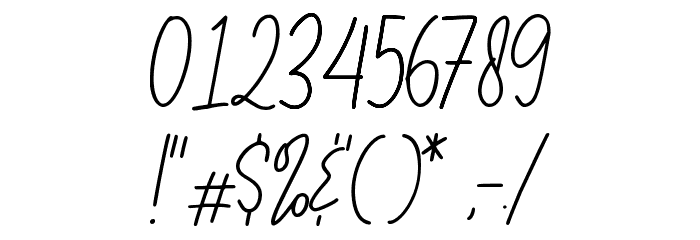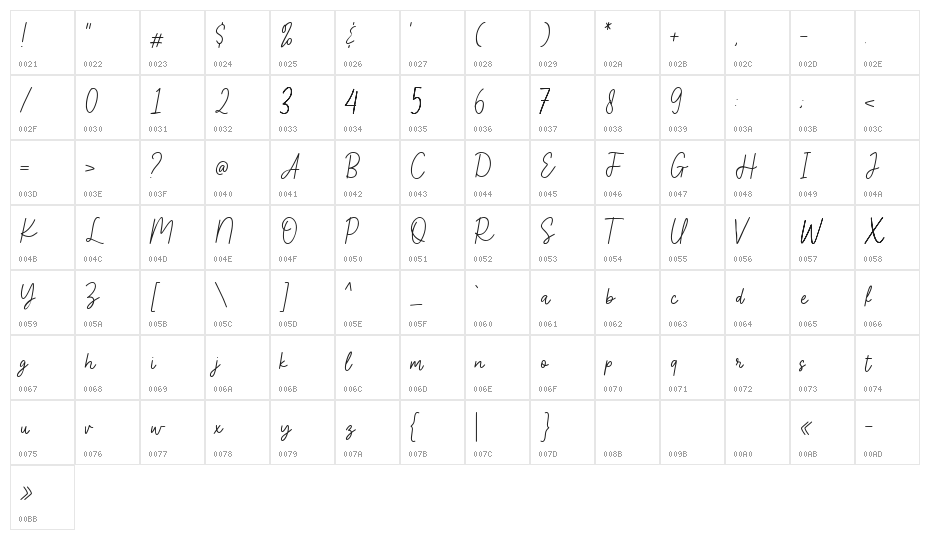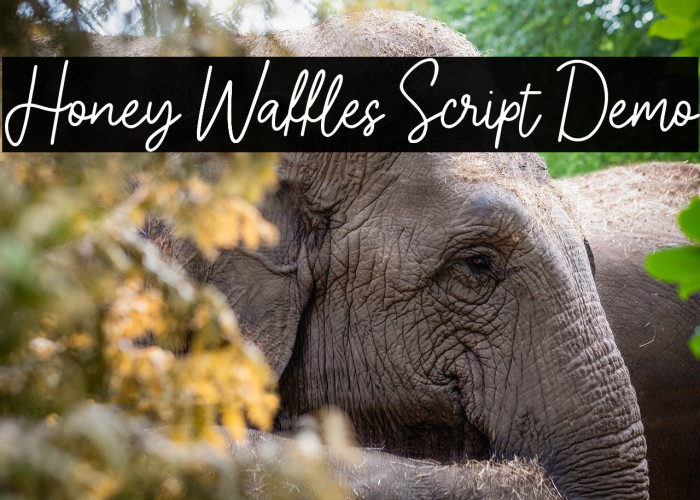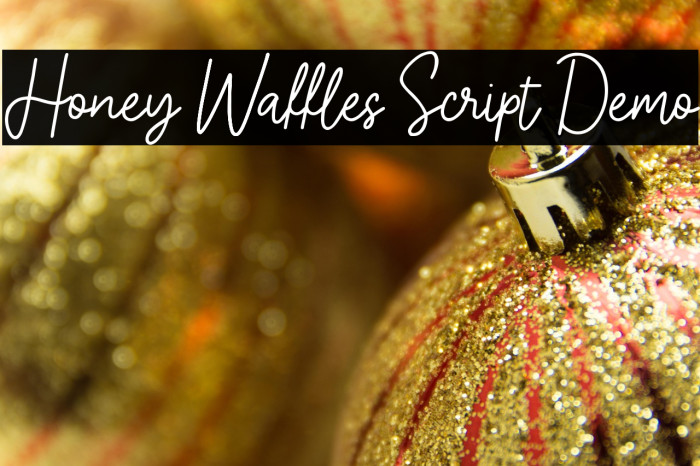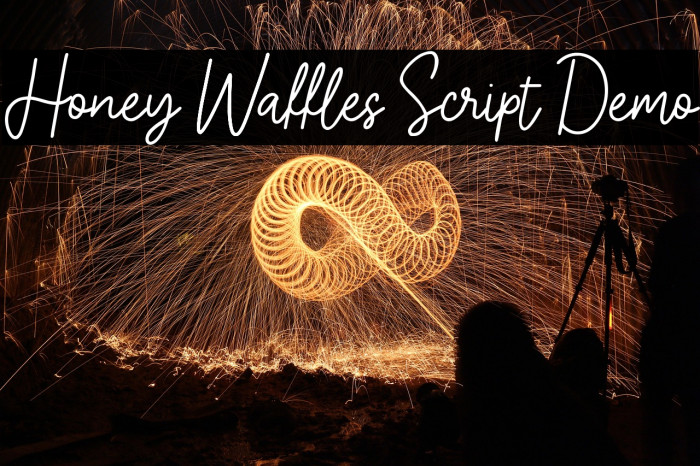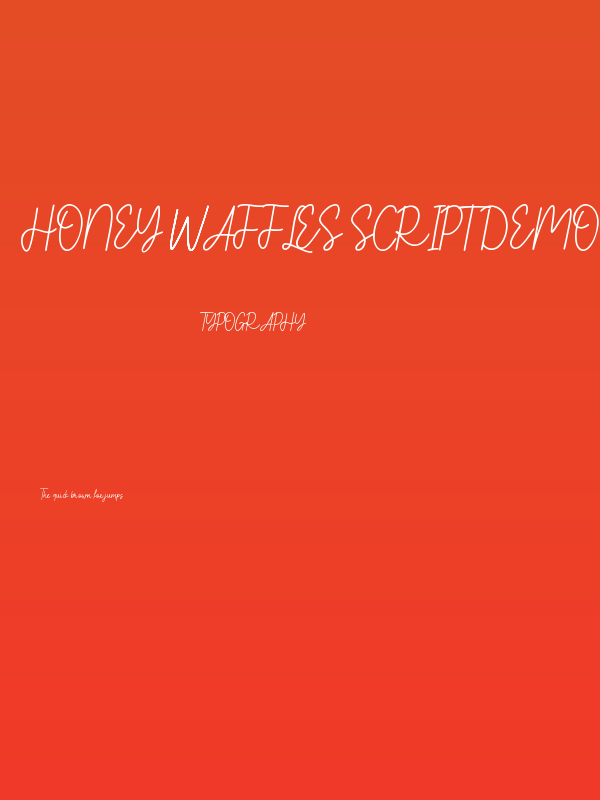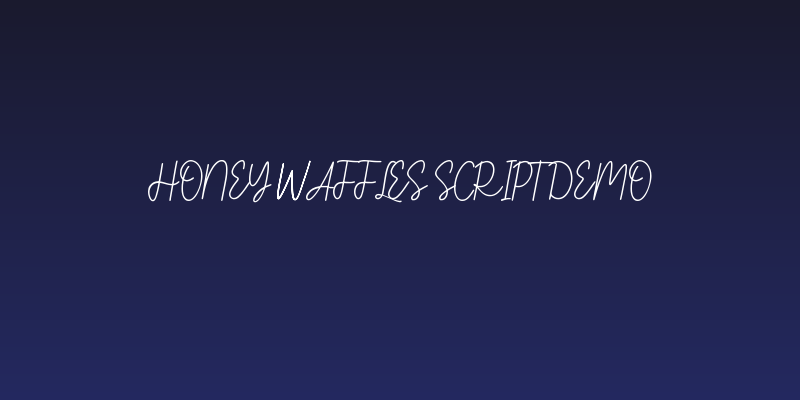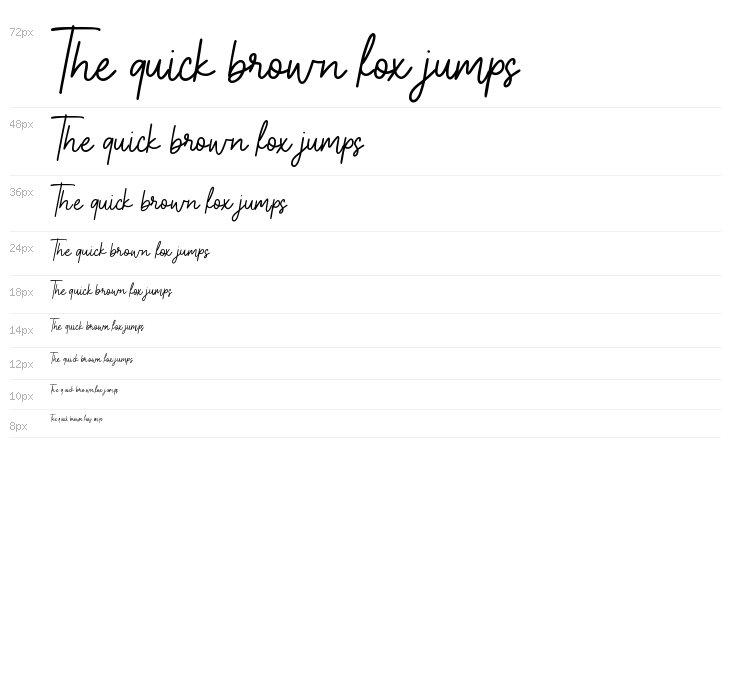
Honey Waffles Script Demo Font
Honey Waffles Script Demo Description
This font exudes a playful and elegant script style, characterized by its flowing, cursive letters that mimic natural handwriting. The strokes are smooth and connected, with a slight slant that adds to its casual yet sophisticated appearance. The uppercase letters are bold and prominent, while the lowercase letters maintain a consistent flow, enhancing readability. The numerals are distinct and clear, complementing the overall script style. Special characters are well-integrated, maintaining the font's cohesive look. This font is perfect for projects that require a personal touch, such as invitations, greeting cards, or branding materials.